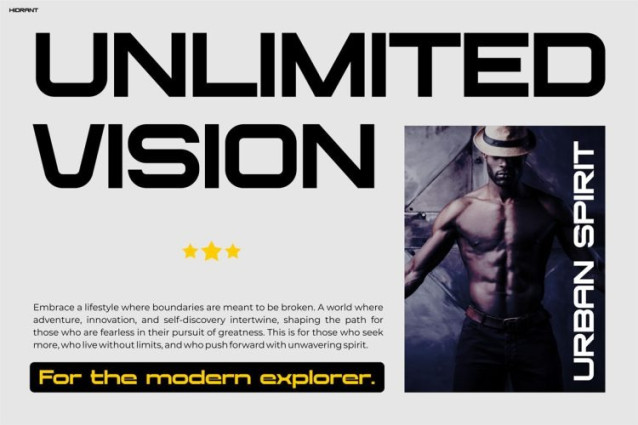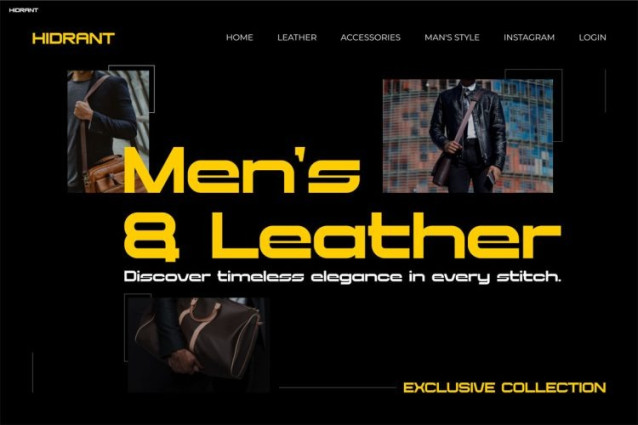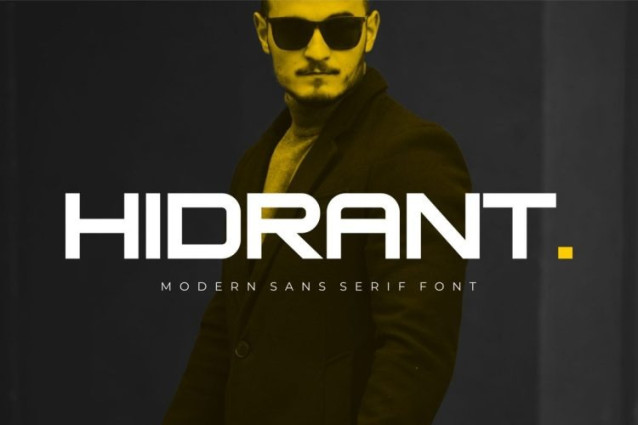
Hidrant Font
Hidrant Font is a bold, modern sans serif font designed to project strength, clarity, and confidence in every letterform. From the very first glance, this font stands out because of its sharp geometry, clean cuts, and futuristic proportions. Moreover, its aesthetic feels strong yet minimal, making it visually striking without unnecessary complexity. The balanced spacing and solid structure give HIDRANT a commanding presence, while still remaining highly readable across digital and print media. As shown in the preview images, this font excels in bold headlines, promotional banners, branding layouts, and urban-style visuals. Because of its strong construction and modern attitude, Instagram Font HIDRANT becomes a powerful tool for designers who want to communicate authority, performance, and innovation.
The preview designs demonstrate its versatility across fashion promotions, men’s lifestyle branding, barber shops, footwear ads, sports campaigns, watches, and urban exploration themes. Furthermore, the uppercase-heavy structure enhances masculinity, strength, and professionalism. This makes the font ideal for brands that want to appear modern, fearless, and forward-thinking. Whether used on posters, Instagram posts, websites, packaging, or editorial layouts, HIDRANT delivers a sharp and controlled visual identity. Because of its modern sans serif style, it also pairs well with minimal imagery and strong photography.